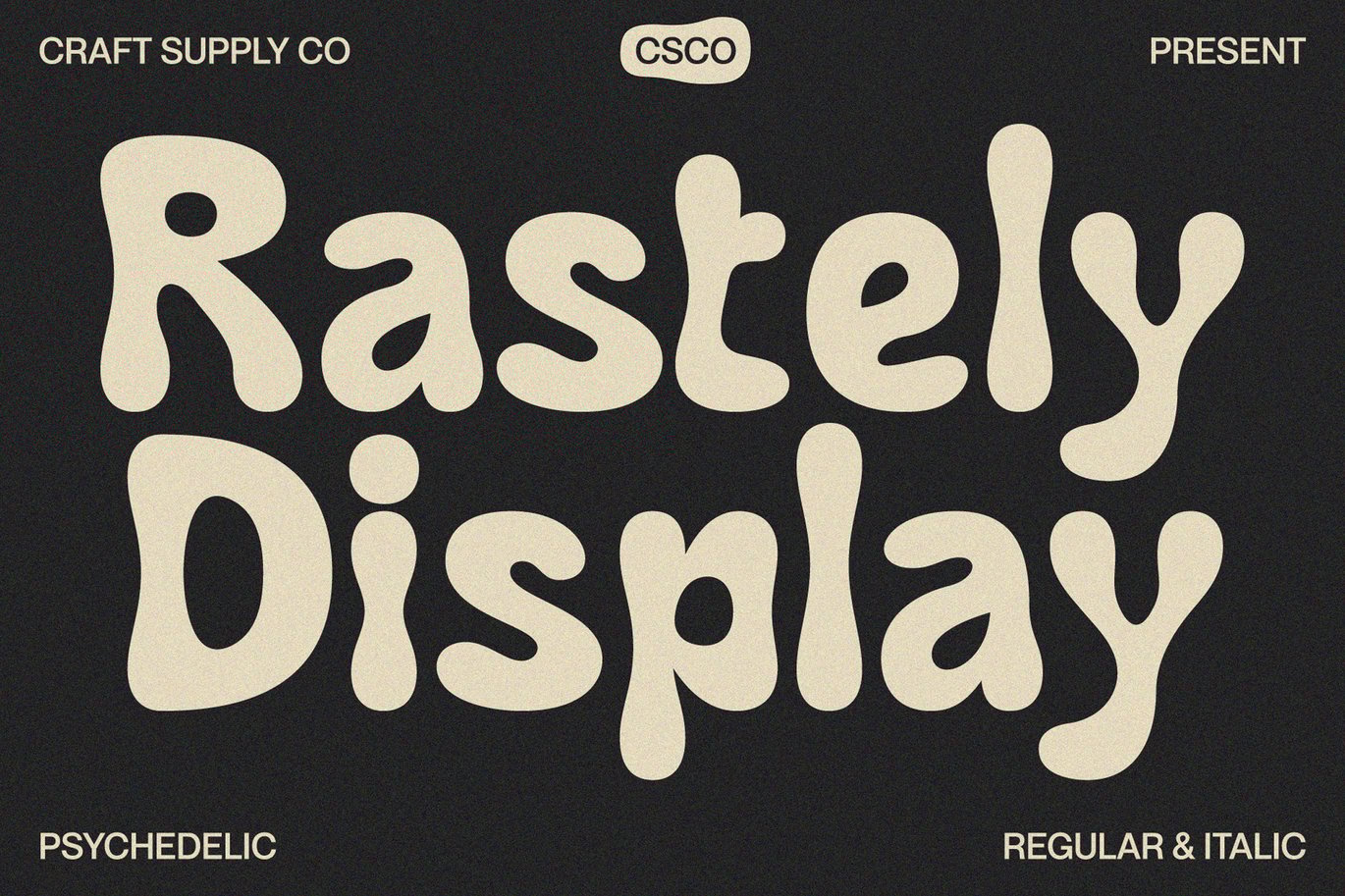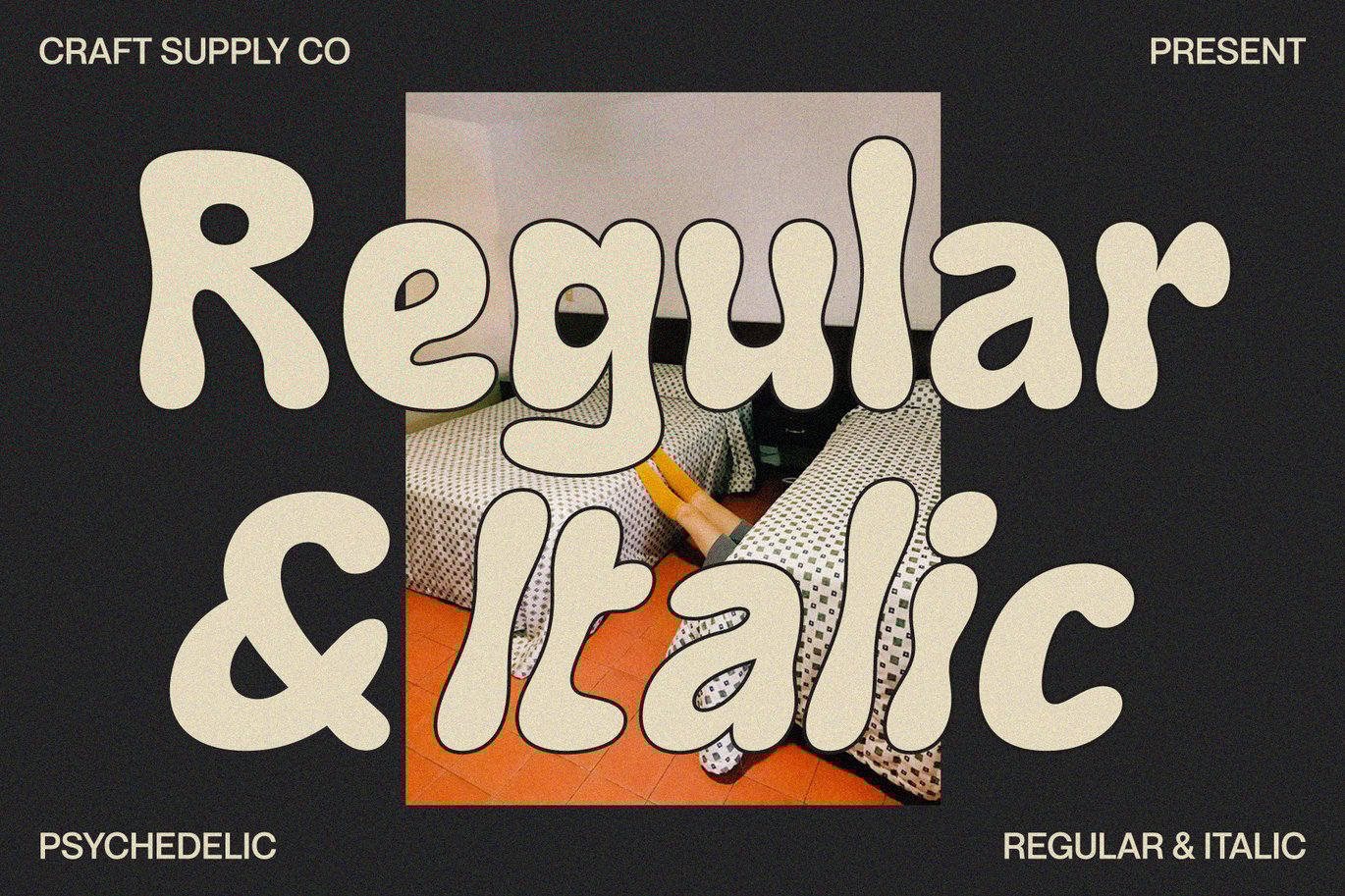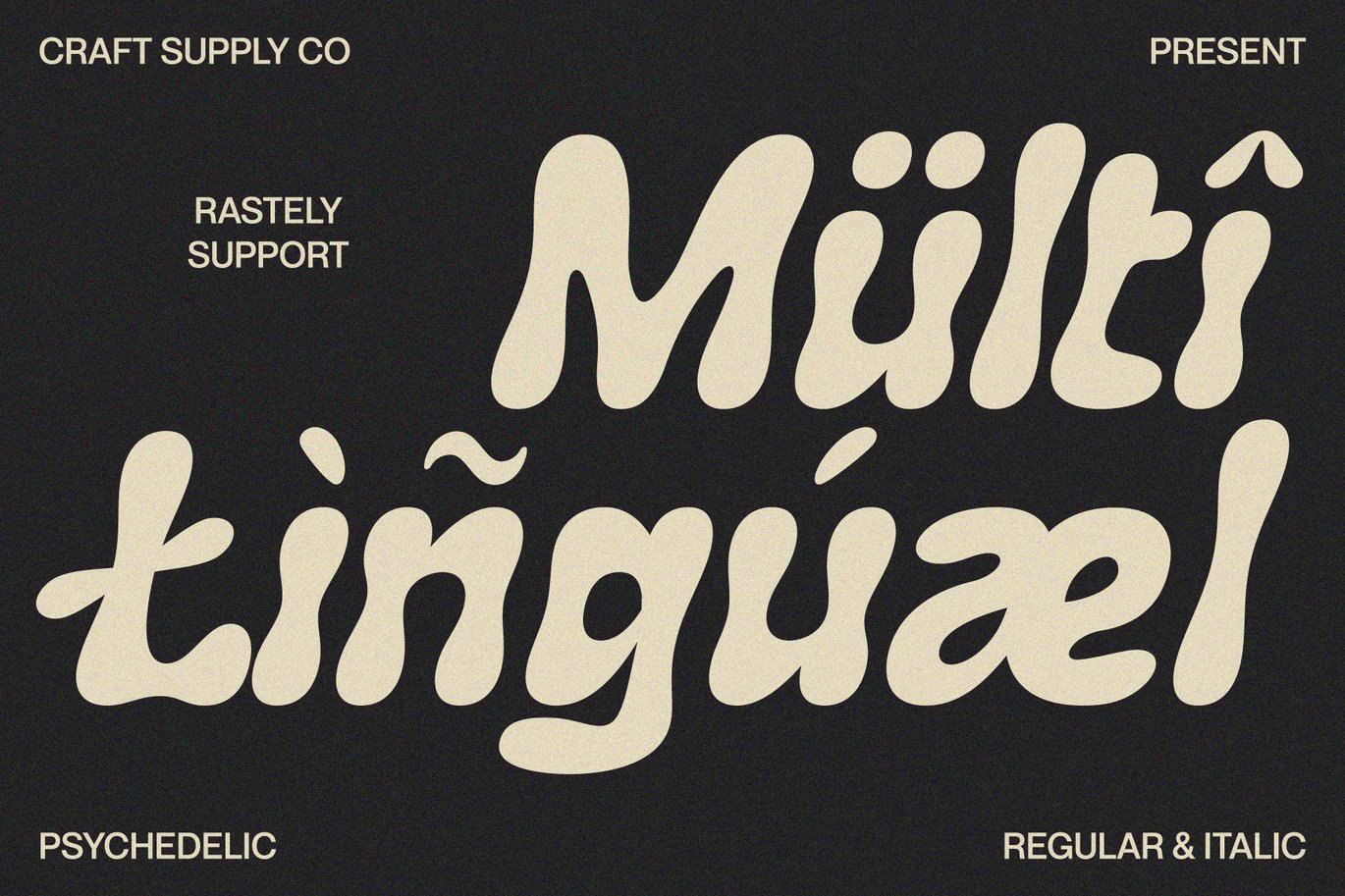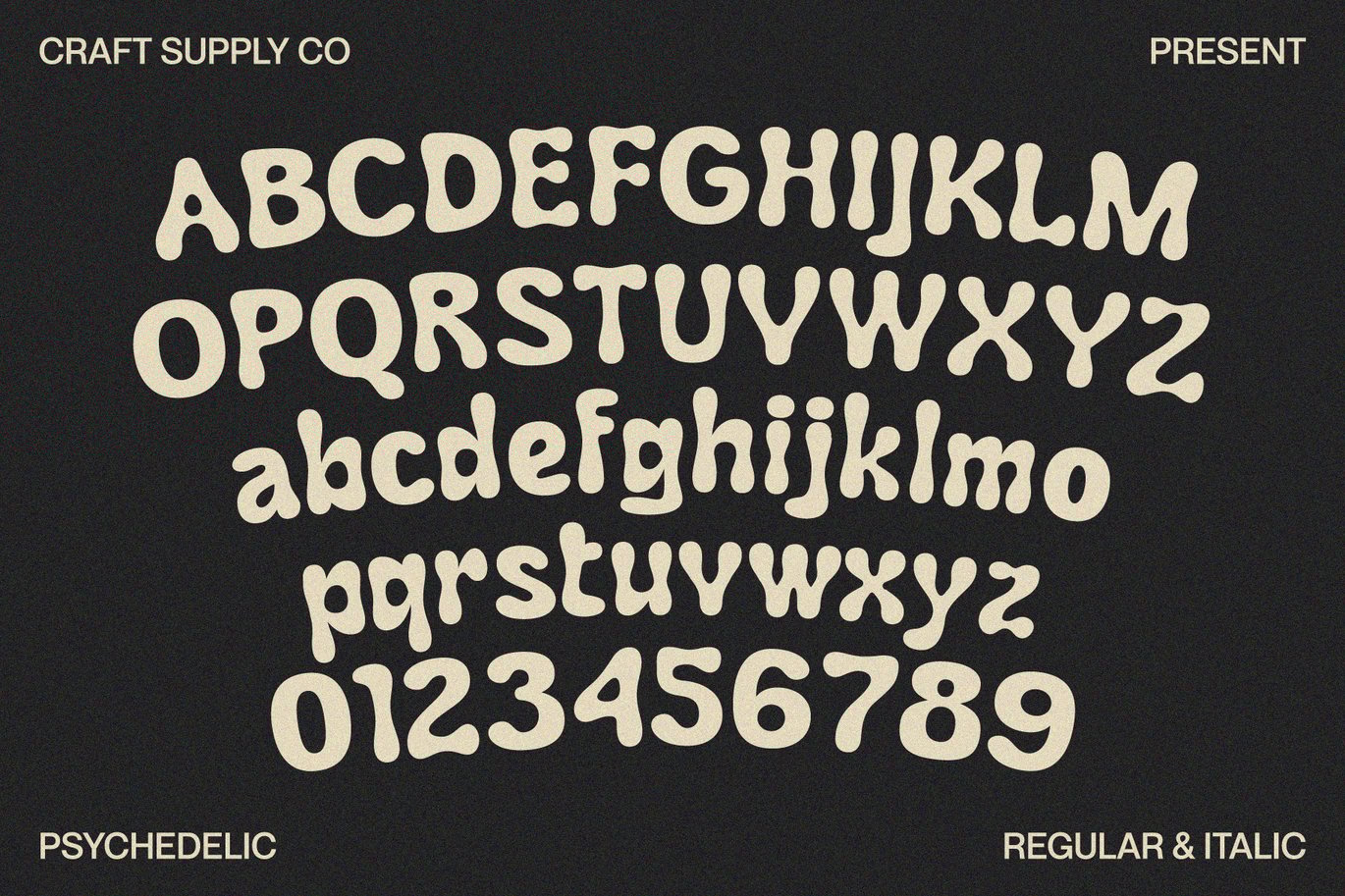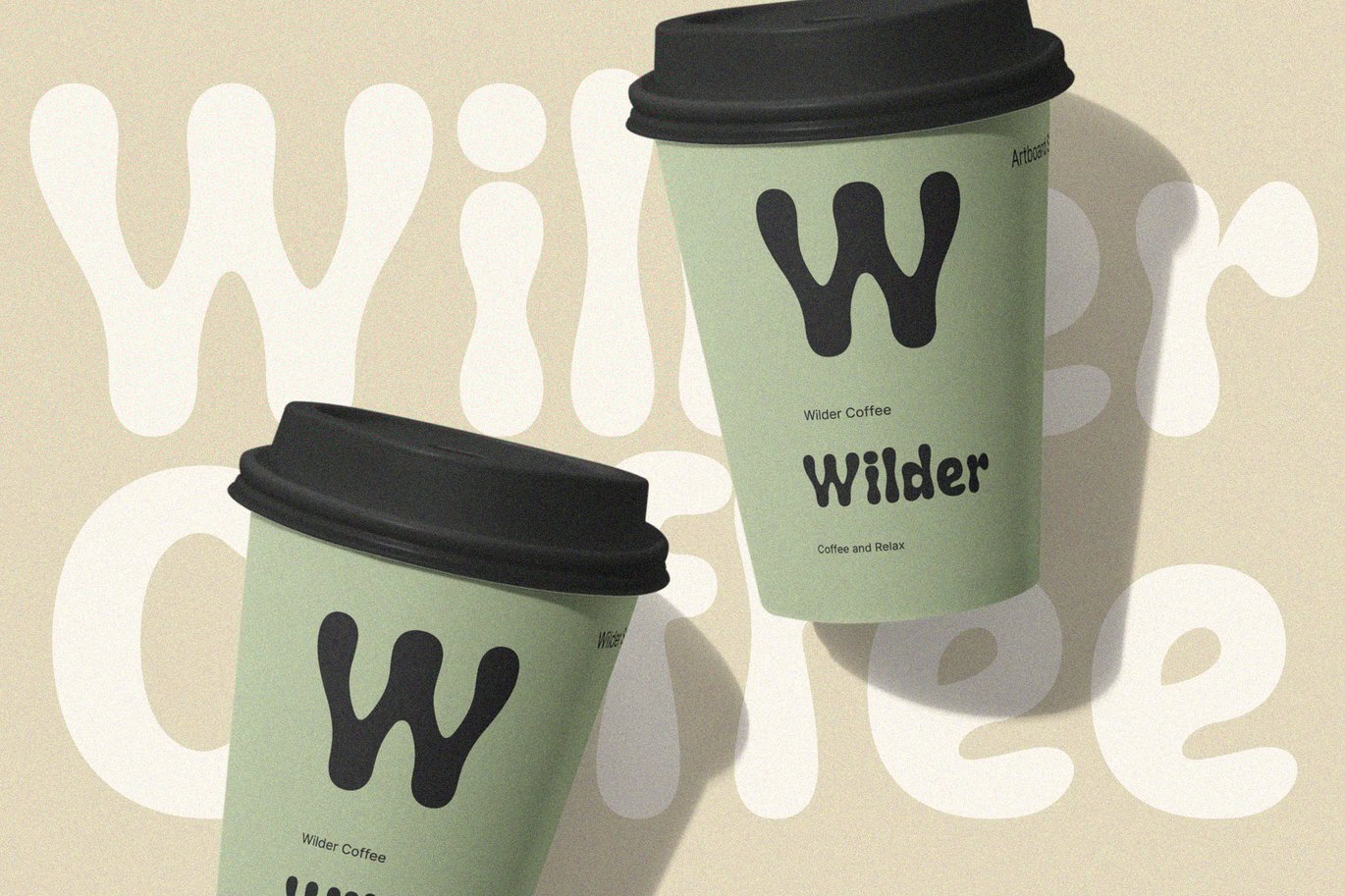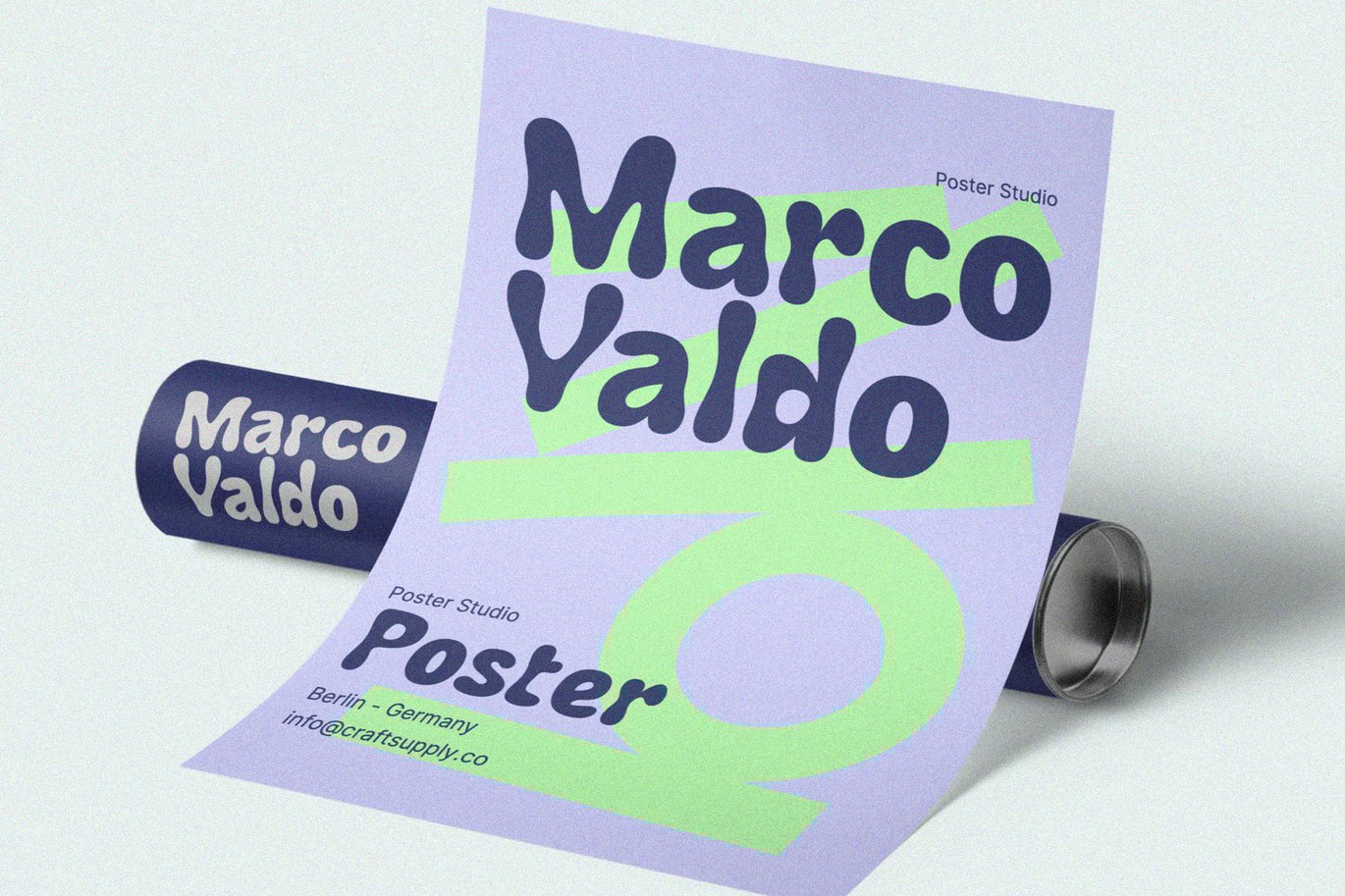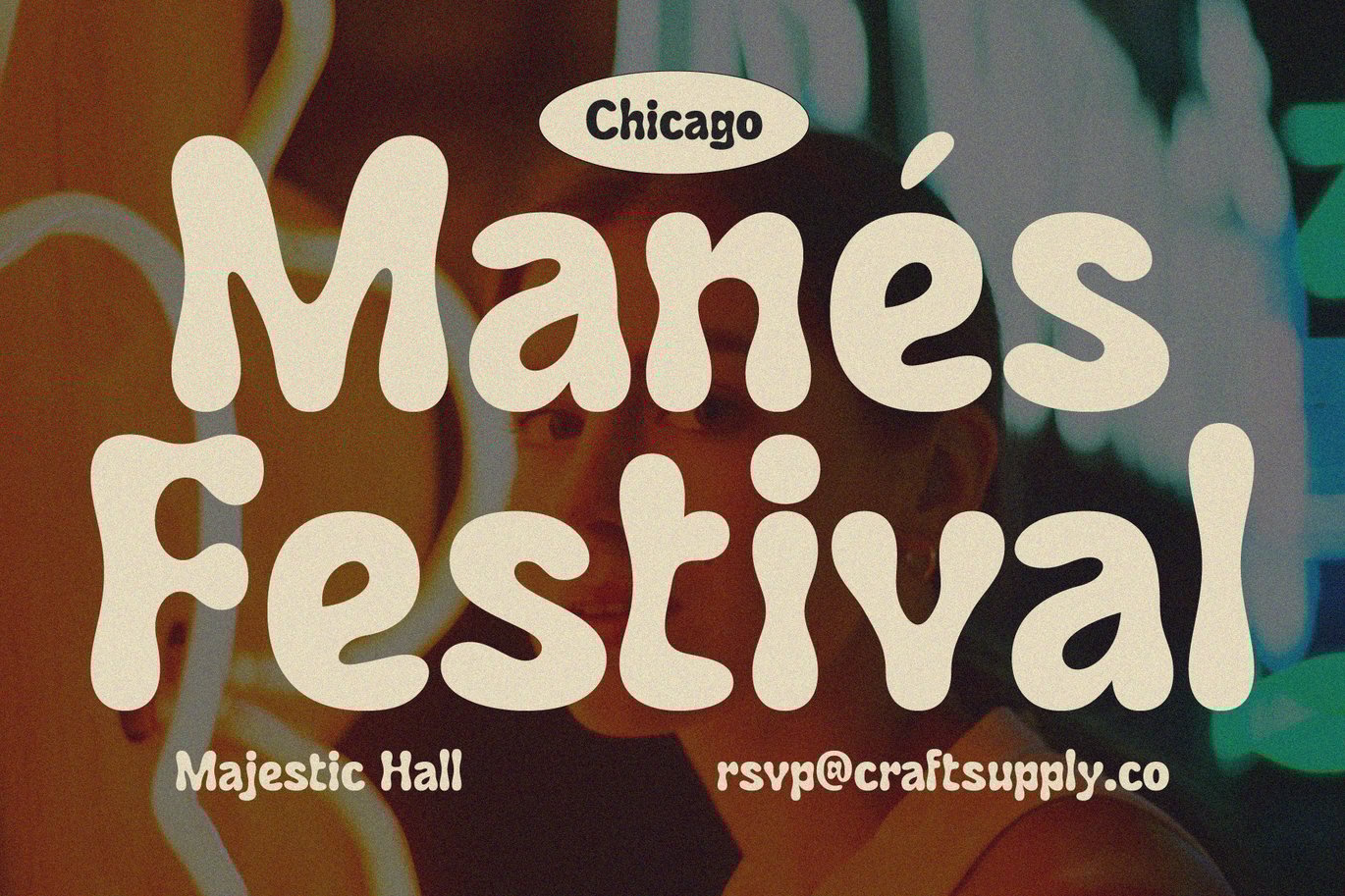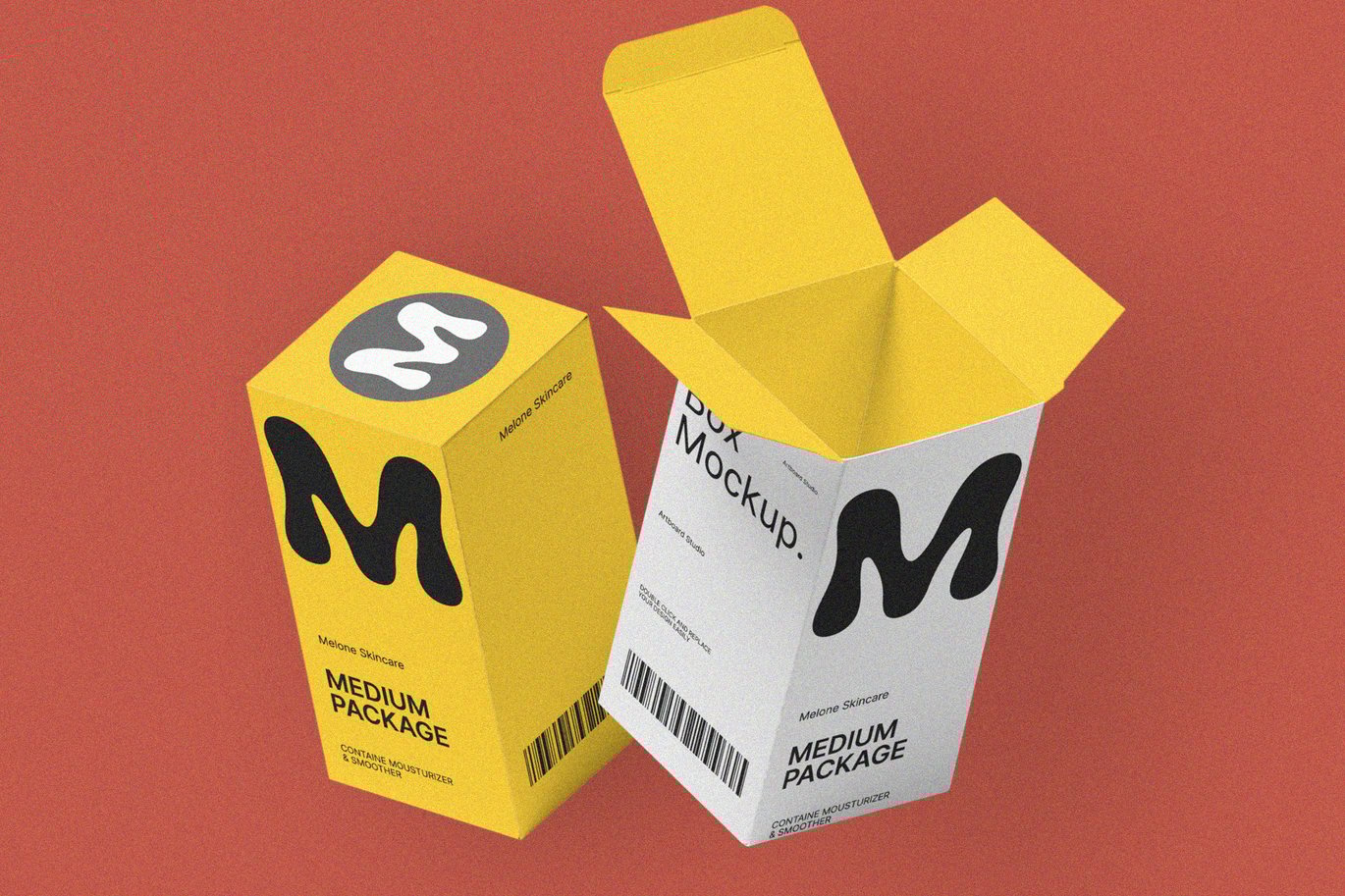
Rastely – Funky Typeface
Unleash Your Joy with Rastely Dive into the fun with Rastely – Funky Typeface. It’s a joyful escape, perfect for creative minds. Inspired by psychedelic vibes, this font keeps it chill. Its playful curves promise a good time. Every letter brings a smile, designed for fun at first sight.
Playful to the Core Rastely isn’t just a font; it’s a party invitation. Crafted with a relaxed approach, it’s easy-going yet bold. Let each character tell a story of cheer. Imagine your projects with a touch of whimsy. Moreover, its easy legibility makes it perfect for all ages.